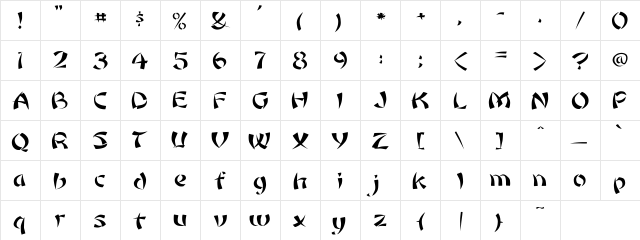
Rickshaw Wd Regular
Design Context for Rickshaw Wd Typeface
Rickshaw Wd is a composed and adaptable typeface that performs quietly and consistently across a wide range of design contexts.